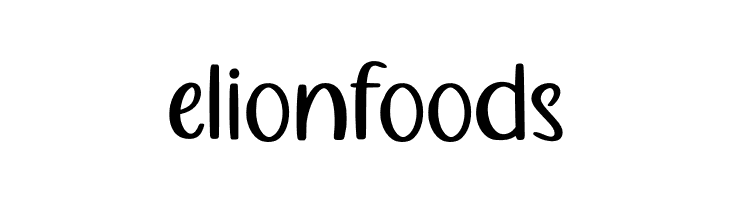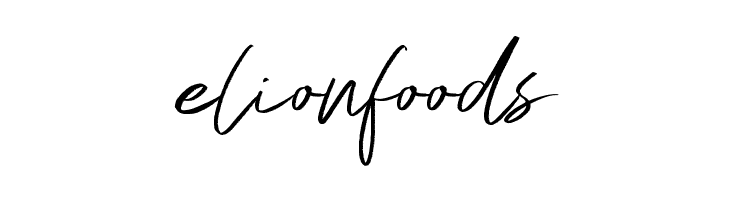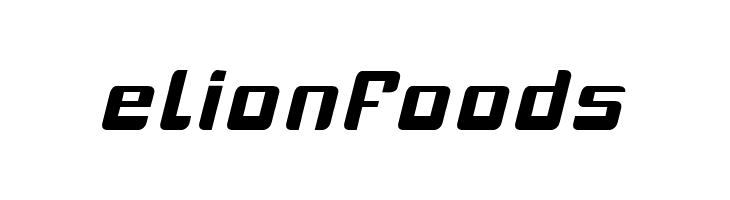
A bold, angular font with a modern, edgy style.
A bold, chaotic font with brush-like strokes and splattered ink effects.
A modern, geometric font with a bold, slanted design.
A modern, geometric sans-serif typeface with balanced spacing and uniform stroke width.
A quirky, hand-drawn dingbat font with abstract illustrations.
A flowing, cursive font with elegant, connected letters and a natural handwriting style.
A bold, textured font with a distressed, hand-drawn appearance.
A flowing, elegant cursive script with interconnected characters.
A dynamic script font with bold, hand-brushed strokes and elegant cursive flow.
A playful, casual handwritten font with smooth, rounded edges.